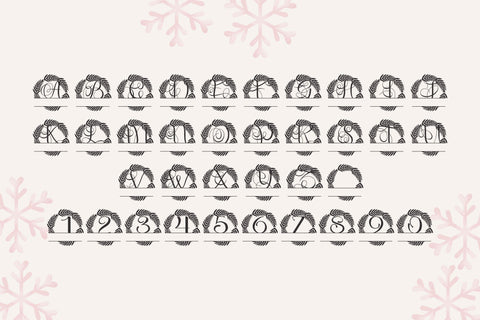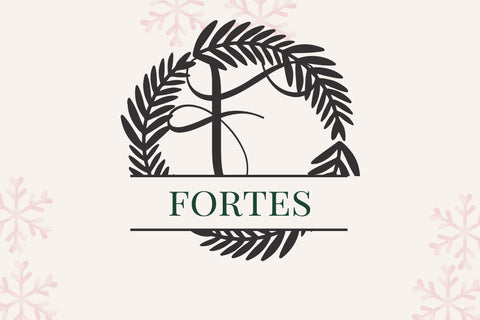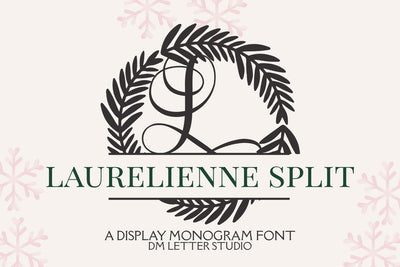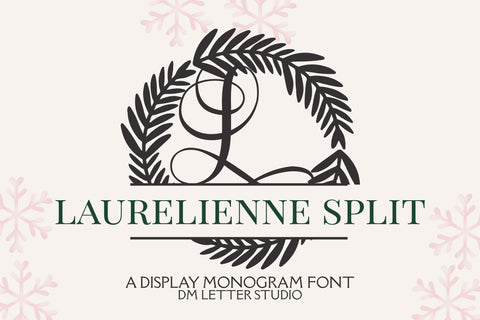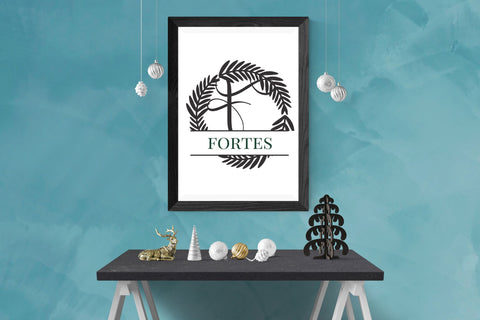
Laurelienne Split Monogram
Meet Laurelienne Split, the Split Monogram Font
Laurelienne Split Monogram turns simple initials into graceful laurel-inspired emblems with a clean center split for names, dates, or short words. The strokes are smooth and balanced, so letters stay clear at any size. Because counters remain open and curves stay clean, tiny tags print crisp while large signage looks elegant and refined. Use it for wedding suites, boutique logos, keepsake gifts, wax seals, stationery, and luxury packaging. As a result, your designs feel personalized and gift-ready in minutes.
Fast layouts with Laurelienne Split
Start with a bold split initial, then place a name, family title, or date across the center bar. After that, add supporting text in a soft serif or a neat humanist sans. Because Laurelienne Split holds shape at small sizes, cards, cartons, acrylic signs, and tags print cleanly and cut smoothly. In addition, the proportions pair beautifully with wreath frames, laurel rings, oval borders, and minimal line accents, so full sets come together in minutes. Finally, save palette pairs like sage & ivory, champagne & charcoal, navy & pearl, or cocoa & cream to repeat across your product line.
Creative uses and quick wins
- Logo badges, shop marks, and product seals
- Wedding monograms, place cards, and table numbers
- Wax seals, ribbon tags, and keepsake boxes
- Favor stickers, tissue labels, and thank-you cards
- Split monogram initials built for quick personalization
- Curves tuned for foil, letterpress, engraving, laser, vinyl, DTF, and sublimation
Design tips for Laurelienne Split Monogram
Keep the center text short so the initial stays the hero. Also, increase tracking slightly for names on small labels to improve readability. For extra depth, add a thin inner stroke or a soft shadow behind the monogram on light backgrounds. For texture, try linen stocks, vellum wraps, or pearl papers. Finally, export at 300 DPI for print and at 2× size for web so edges stay smooth everywhere.